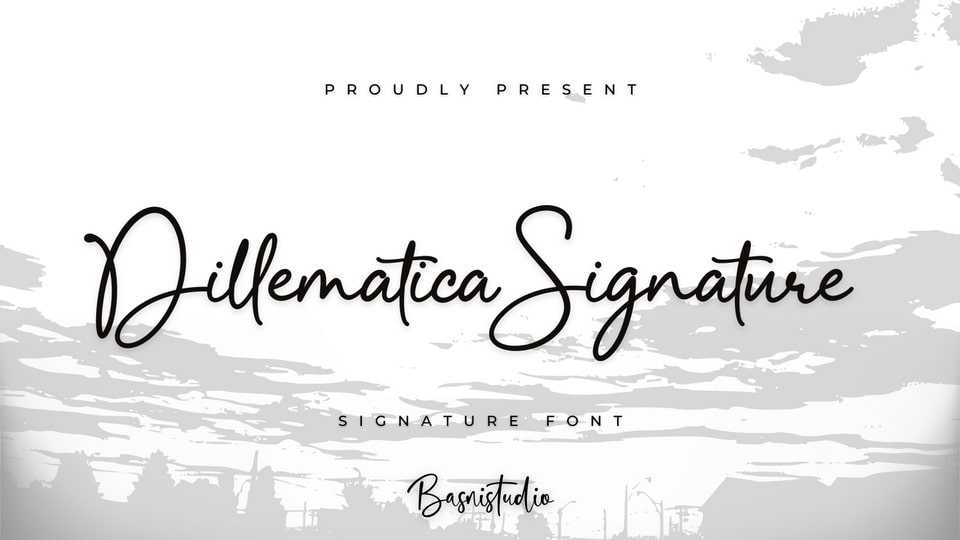
Download Dillematica font, a signature typeface that adds a elegant, versatile touch to everything from branding and social media to invitations and packaging.